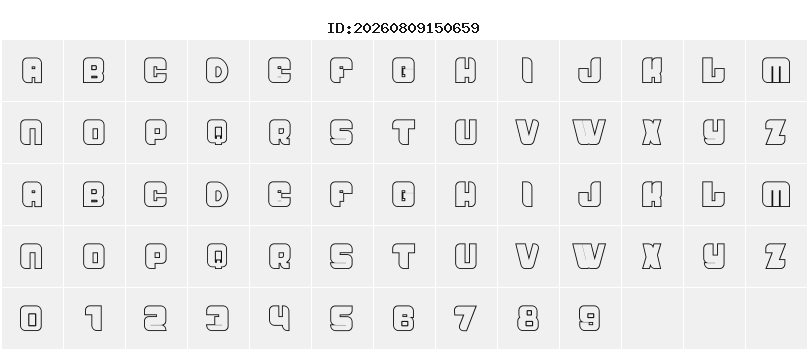
About Passeig A.ttf
Passeig A.ttf is a modern, elegant sans-serif font designed for ultimate readability and visual harmony. Perfect for branding, headlines, web design, and print materials.